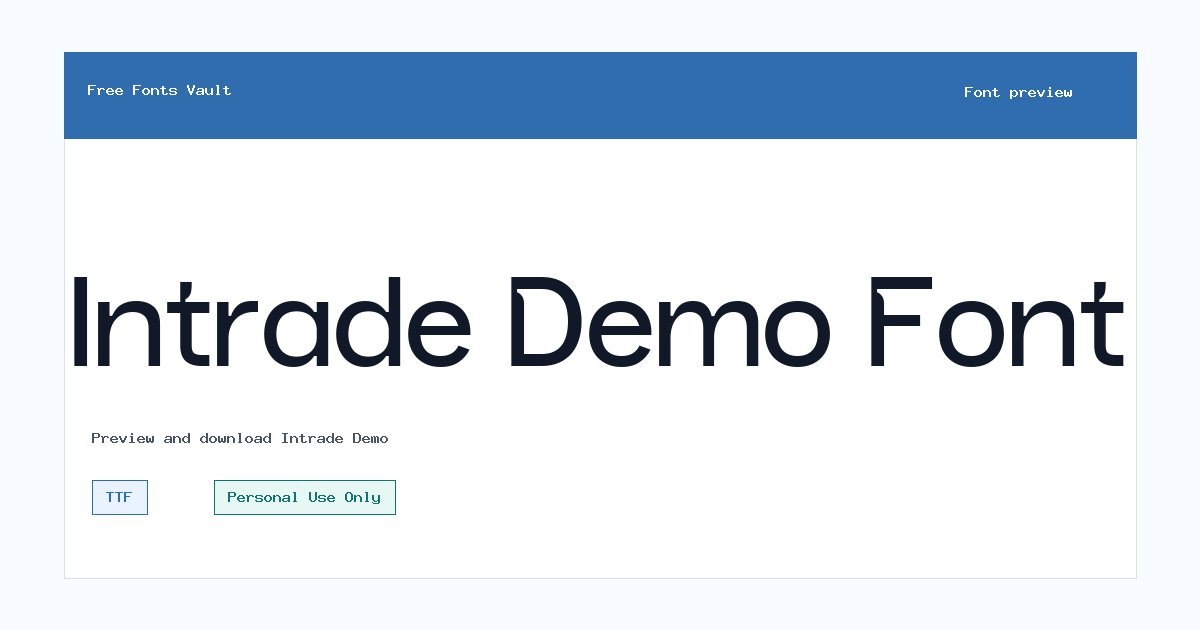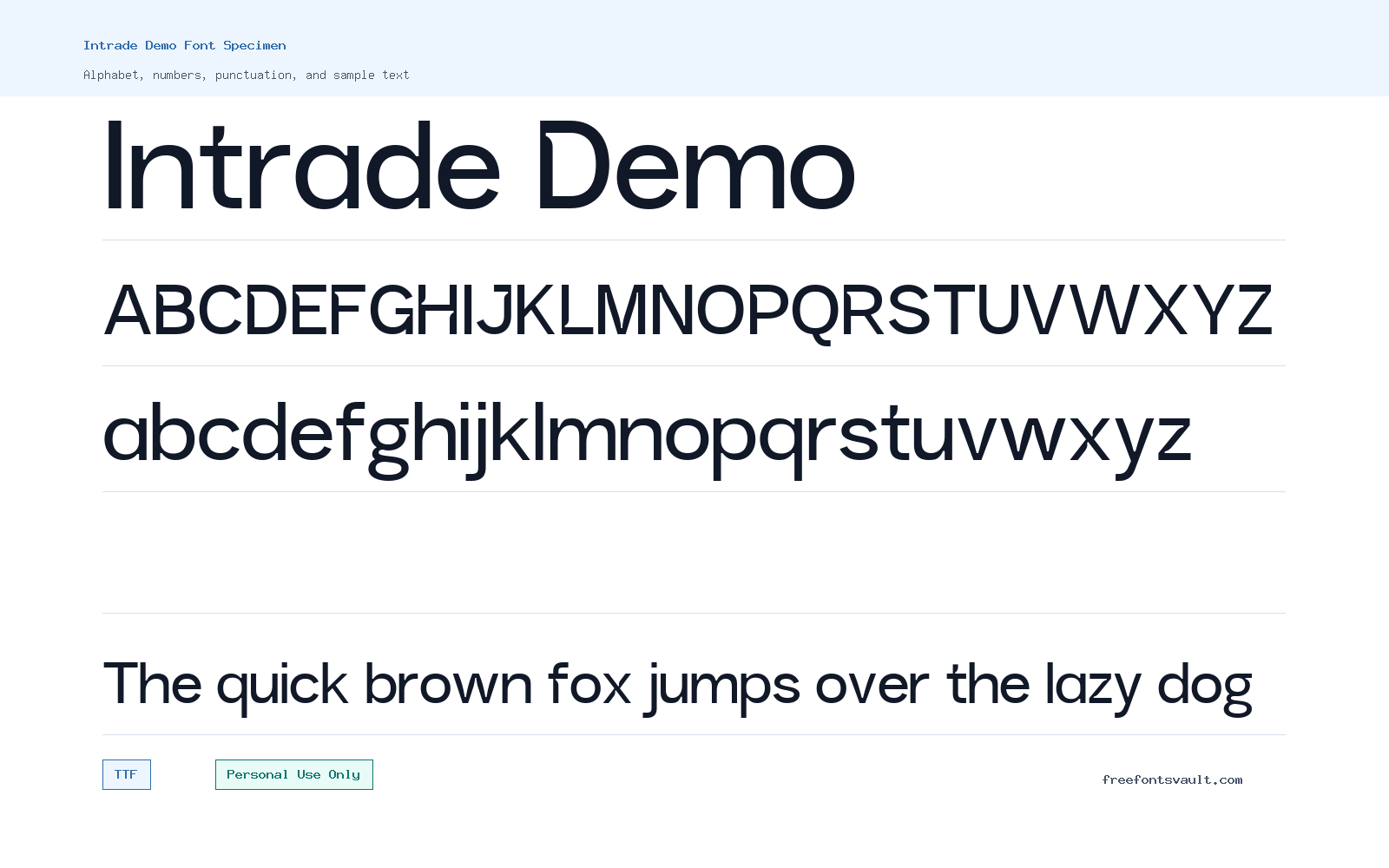
Intrade Demo
Intrade Demo is a regular-weight sans serif demo font by Ragamkata Studio. It is a practical choice to test when you need clean letterforms for titles, simple branding drafts, poster text, or layout mockups, but its license is limited to personal use only.
Intrade Demo comes as a TTF font file in a regular 400 weight with normal styling. The name and license information identify it as part of the Intrade sans serif family, so it is best approached as a straightforward display-and-text option rather than a decorative novelty font. Use the preview field to check how its uppercase letters, lowercase rhythm, numbers, and punctuation behave in your own words. This is especially useful for names, taglines, menu headings, packaging drafts, and short web interface labels where spacing and word shape matter as much as the general look.
For design work, start by testing Intrade Demo at headline sizes and short paragraph lengths. A single regular weight can work well in mockups, posters, social graphics, and logo concepts, but it may need help from another font if the layout requires strong hierarchy. Pair it with a readable serif for editorial contrast, a neutral sans serif for body copy, or a heavier display face if you need a louder title. Avoid relying on it for long articles until you have checked readability, line spacing, and how the font renders at smaller sizes. Because this is a demo font with a personal-use license, it is safer for practice projects, personal artwork, student layouts, and early visual exploration than for finished client work.
In logo and brand mockups, keep the testing focused. Try the exact brand name, initials, and common tagline lengths rather than judging the font from sample text alone. Look closely at repeated letters, tight pairs, and the spacing around punctuation. If the mark will later be used commercially, treat this version as a preview tool and obtain the correct permission or commercial license from the rights holder before final use. The same caution applies to posters for paid events, monetized YouTube graphics, product packaging, advertising, app screens, merchandise, and website assets for a business.
- Sans serif demo style that can be previewed for headings, mock logos, posters, and short layout text.
- Normal, upright styling for clean word shapes without italic or decorative effects.
- Useful for checking brand names, titles, numbers, punctuation, and spacing before choosing a final licensed font.
- Personal design experiments
- Logo concept drafts
- Poster and flyer mockups
- Social media graphics
- Website and app layout previews
- Student or practice typography projects
- Short headlines and title treatments
- Testing sans serif pairing ideas
Is Intrade Demo good for body text?
It may work for short text, but test it carefully at smaller sizes. Since only a regular weight is listed, longer layouts may need another font for hierarchy, emphasis, and comfortable reading.
What should I pair with Intrade Demo?
Try pairing it with a readable serif for editorial contrast or a quiet neutral sans serif for body copy. Keep the partner font simple so the layout does not feel crowded.